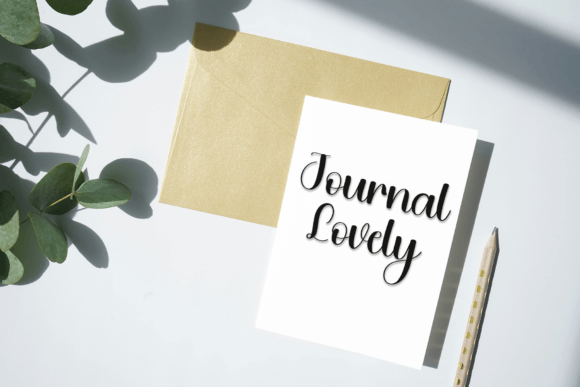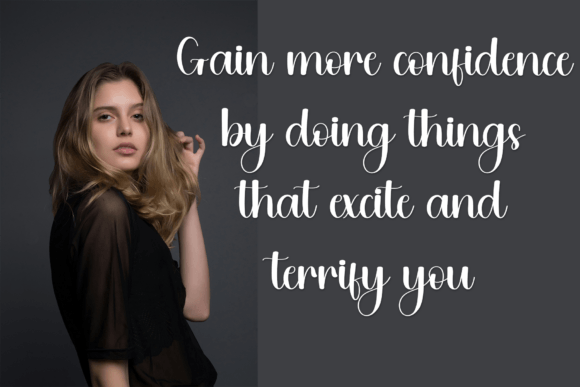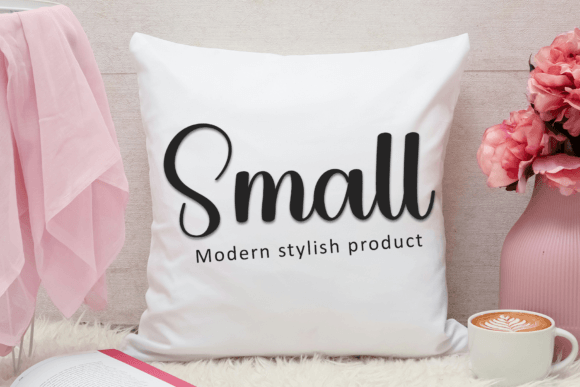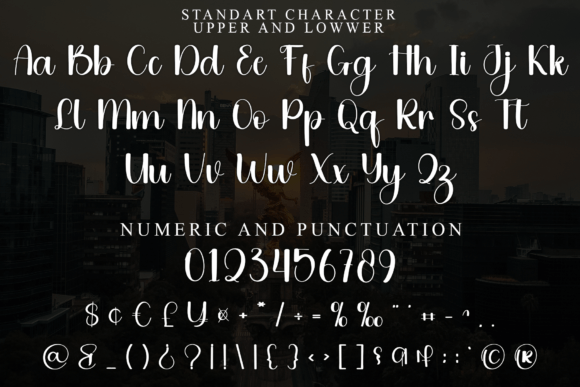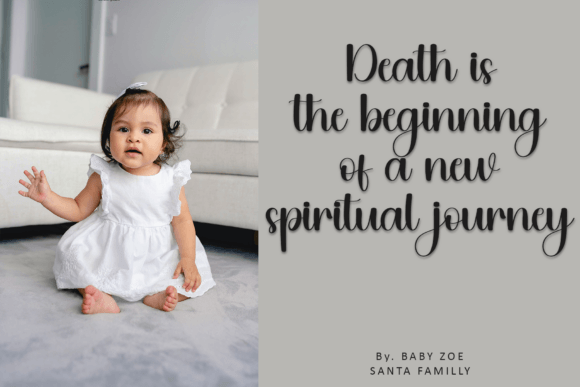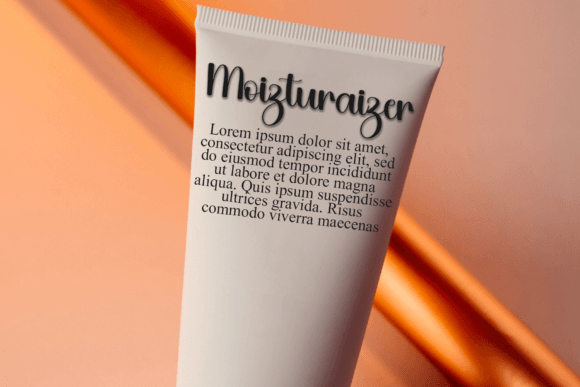
Introduction to Christmas Happines Font
As a designer, there’s nothing quite like the thrill of bringing a creative project to life. You’ve spent hours pouring over inspiration boards, perfecting your color palette, and crafting the perfect message. But it’s the final touch – the typography – that can make or break your design. And that’s where the Christmas Happines Font comes in, a beautifully crafted handwritten font that’s sure to add a touch of magic to your holiday designs.
With its unique and beautiful touch, the Christmas Happines Font is the perfect choice for creating eye-catching logos, branding, and quotes that will make your design come alive. Whether you’re working on a free download or a high-quality design resource, this font is sure to be a valuable addition to your toolkit.
Key Features of Christmas Happines Font
- High-quality, unique design perfect for creative projects and holiday-themed designs.
- Perfect for adding a touch of festive cheer to designs, from greeting cards to website headers.
Honest Review: Christmas Happines Font
As a designer, I was excited to explore the Christmas Happines Font, a free download that promised to bring a touch of festive cheer to my creative projects. Overall, I was pleasantly surprised by the quality of this design resource.
- The font is well-designed and visually appealing, making it perfect for holiday-themed projects.
- The transparent background option allows for seamless integration into various design elements.
- The font is highly customizable, making it easy to adjust to different design styles.
However, I did encounter a few limitations that might impact its usability.
- The font is limited to a single style, which might not be ideal for projects requiring multiple font variations.
Overall, I’m impressed by the quality and versatility of the Christmas Happines Font. While it has its limitations, it’s a great addition to any designer’s toolkit, especially for free. I’d definitely recommend it for personal or small-scale projects, and I’m looking forward to exploring more design resources like this one.
Tips for Getting the Most Out of the Christmas Happines Font
To get the most out of the Christmas Happines Font, use it in combination with other design elements, such as images and graphics, to create a visually appealing design. Experiment with different font sizes, colors, and styles to add depth and interest to your design.
The Christmas Happines Font is perfect for a variety of creative projects, including holiday greeting cards, social media graphics, and website headers. Its high-quality design and transparent background make it a versatile design resource for any project.